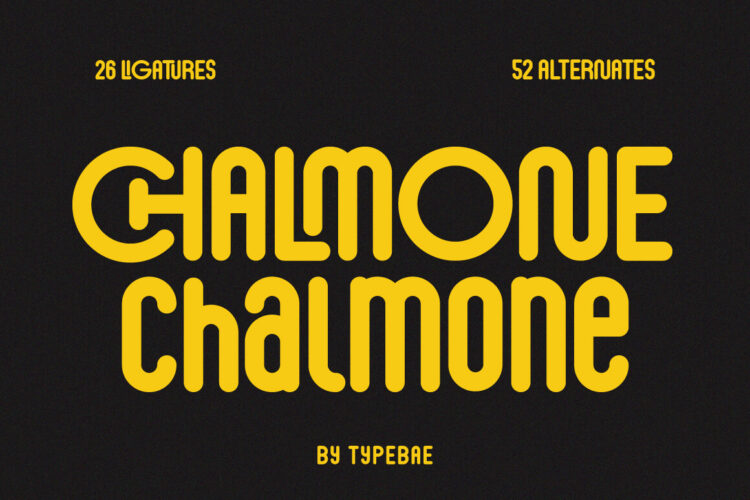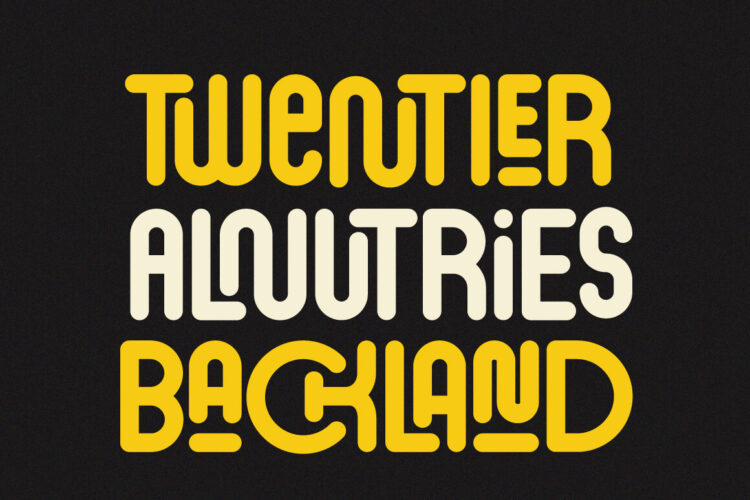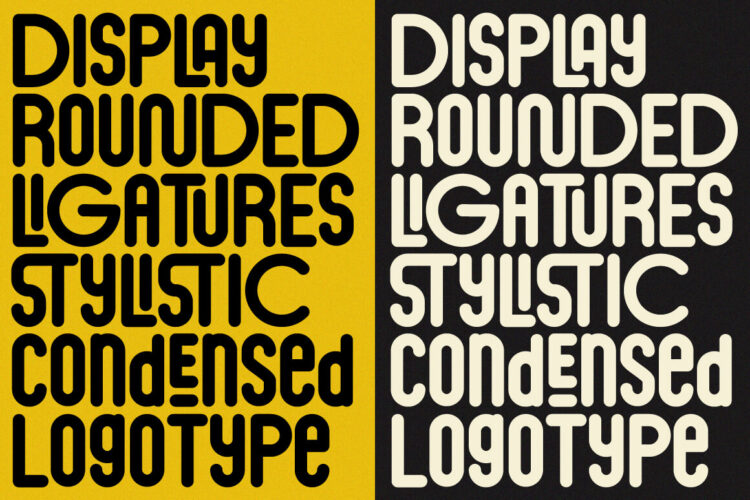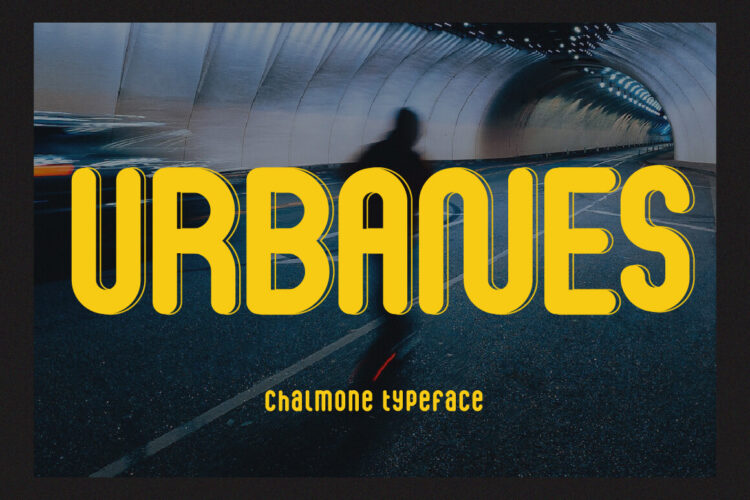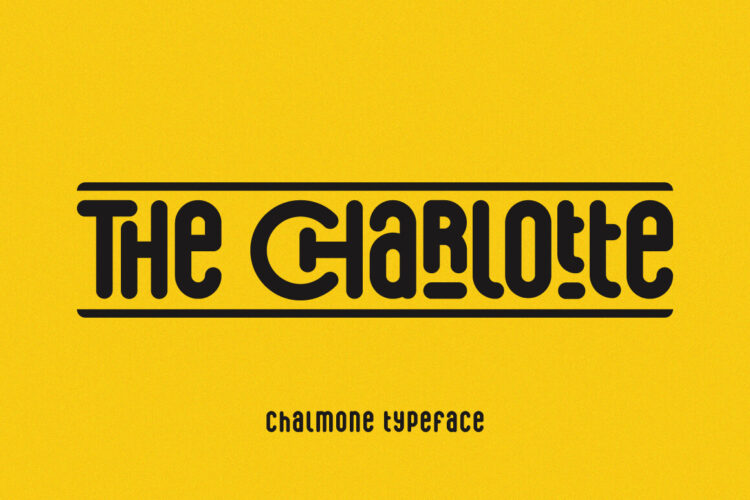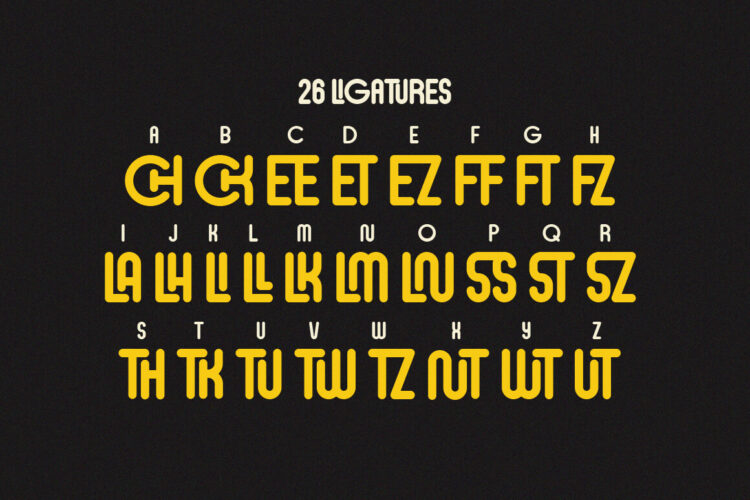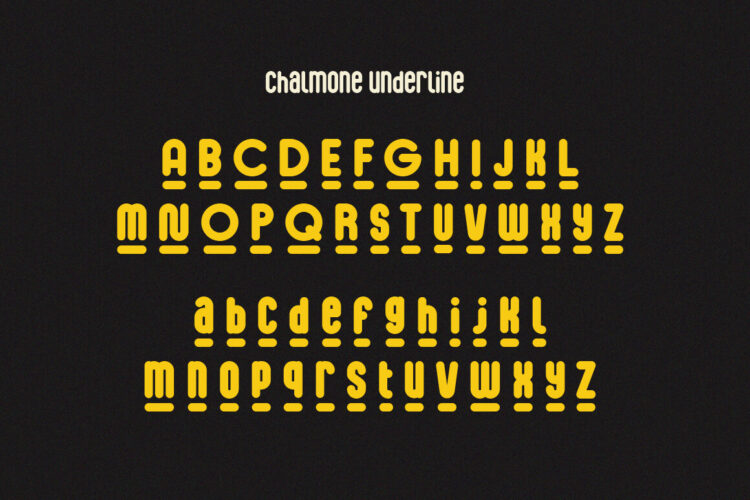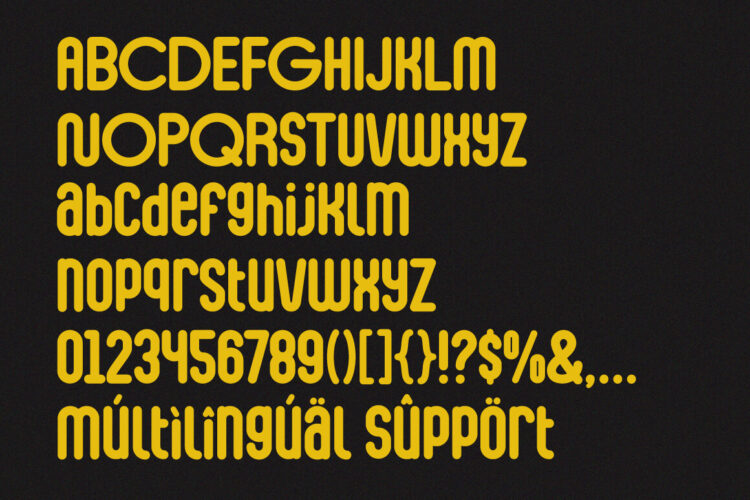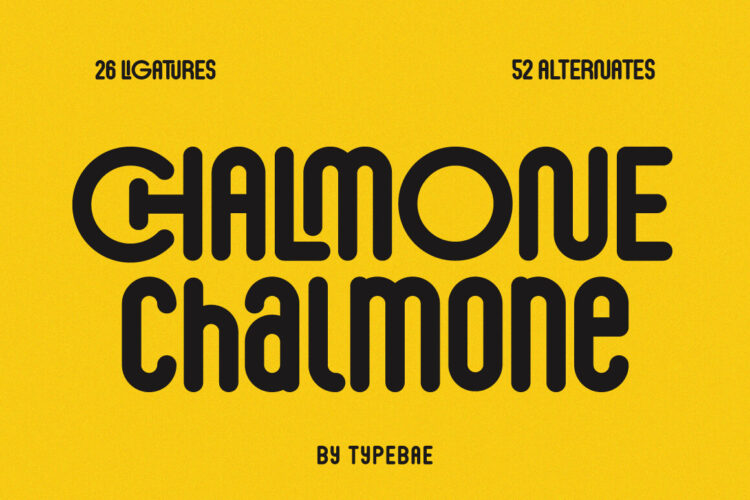
Chalmone is a condensed and rounded sans-serif font with a bold and distinctive personality. It features 26 unique ligatures and alternative underlined fonts. This font is intentionally designed for use in larger point sizes, yet it doesn’t lose its charm even in smaller point sizes, allowing you to be more expressive in your design projects.
Features:
- 26 igatures
- Alternate (Underline Letter)
- Multilingual Support: Afrikaans, Basque, Breton, Catalan, Danish, Dutch, English, Finnish, French, Gaelic (Irish, Scots), German, Icelandic, Indonesian, Irish, Italian, Norwegian, Portuguese, Saami (Southern), Spanish, Swahili, Swedish.